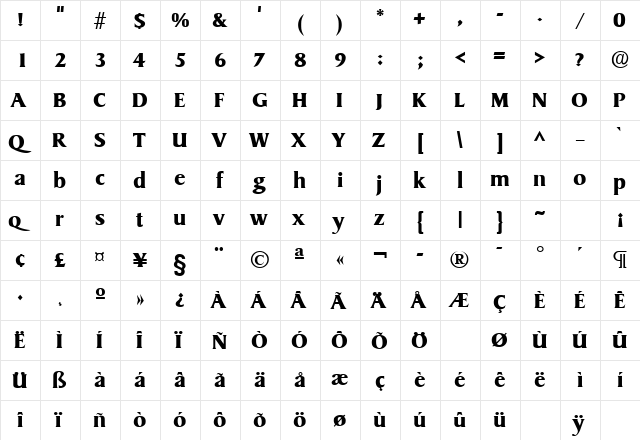
Sydney Bold Font Preview
Sydney Bold
Sydney Bold Font Details
Design Context for Sydney Typeface
Sydney is a composed and adaptable typeface that performs quietly and consistently across a wide range of design contexts. Its bold stroke weight gives it real presence on the page.